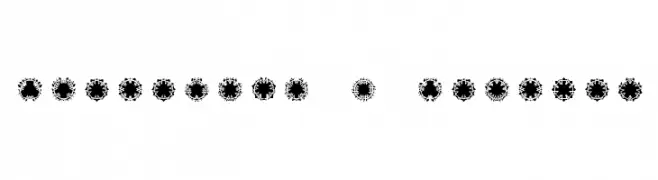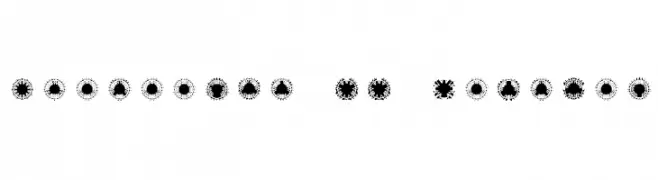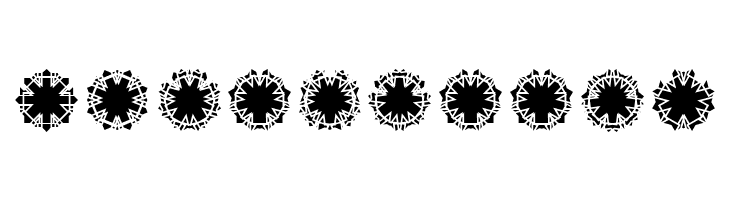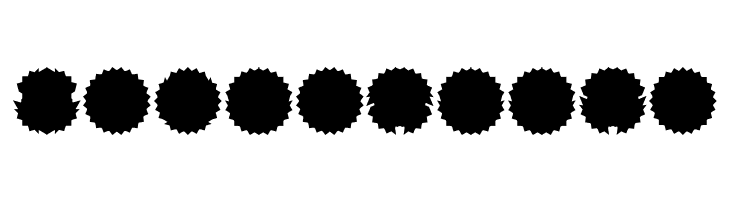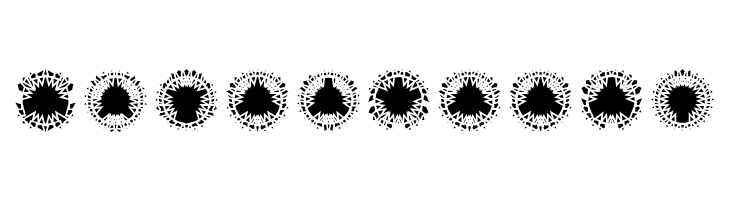
An artistic font with intricate, spiky, abstract shapes resembling organic forms.
Organic, abstract display font with spiky, membrane-inspired forms.
A decorative font with intricate, abstract patterns for each character.
Abstract, spiky circular forms create a decorative and experimental font.